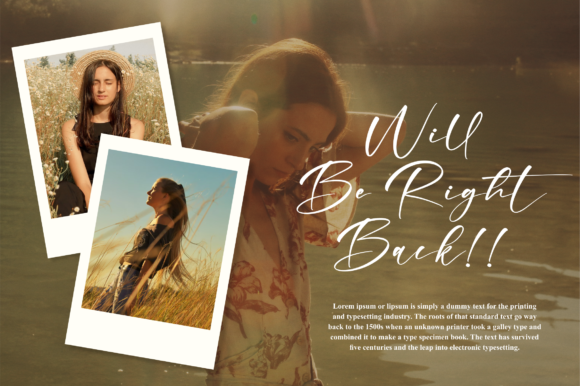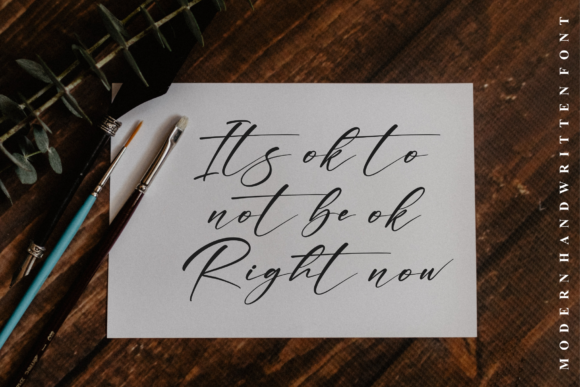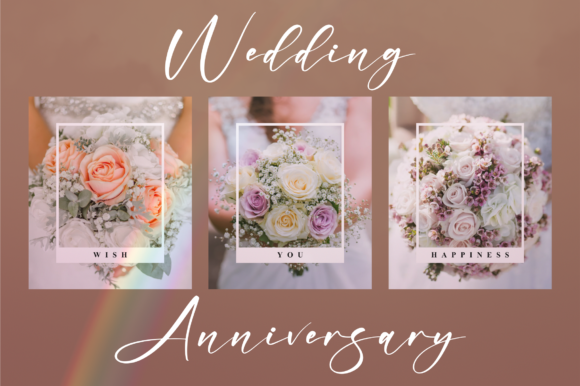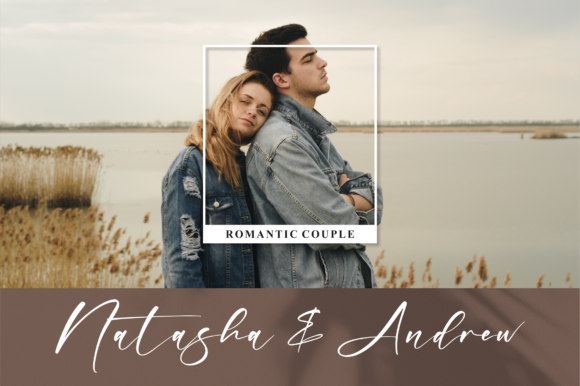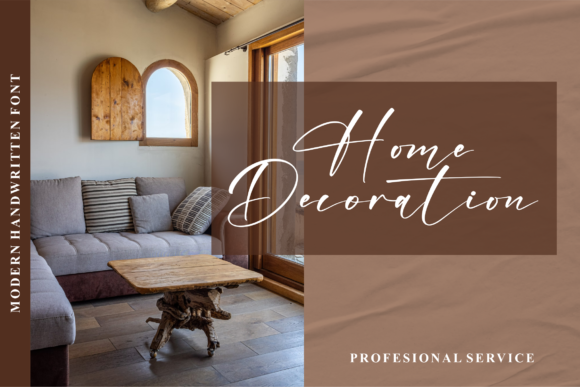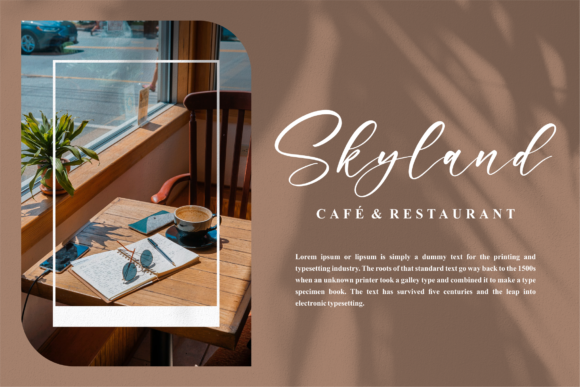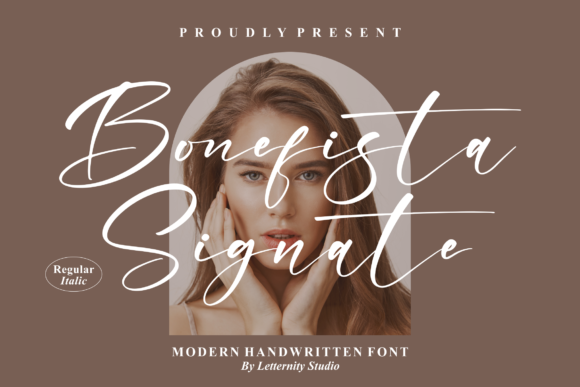
When a Beautiful Script Font is the Perfect Match
Have you ever found yourself staring at a blank page, searching for the perfect font to bring your creative project to life? The moment of clarity arrives, and you know exactly what you need – a beautiful, elegant script font that exudes warmth and sophistication. For designers, this moment is a regular occurrence, and it’s what drives us to continually seek out new and inspiring fonts to elevate our work.
Enter the Bonefista Signate Font, a stunning script font that’s designed to make a lasting impression. With its delicate curves and refined lines, this font is perfect for a wide range of projects, from logos and branding to homeware designs and product packaging. Whether you’re a seasoned designer or just starting out, the Bonefista Signate Font is an invaluable addition to your creative toolkit.
Bonefista Signate Font Key Features
- Character Set: Latin, Cyrillic, Greek, and many other languages
- Unique Characteristics: Bonefista Signate features a unique blend of modern and vintage elements, with a focus on high contrast and strong lines.
- Font Styles: Includes 4 font styles: Regular, Bold, Italic, and Bold Italic
Bonefista Signate Font Review
I recently had the chance to work with the Bonefista Signate Font, and I must say it’s a unique and quirky addition to any design project. ✨ The font’s eclectic mix of script and serif styles creates a visually interesting and eye-catching effect. ✨ The subtle texture and imperfections add a sense of character and authenticity, making it perfect for designs that need a bit of personality.
However, as with any font, there are some limitations to consider. ⚠️ One of the main drawbacks is the font’s limited character set, which can make it difficult to use for longer blocks of text. ⚠️ Additionally, the font’s irregularities can sometimes make it hard to read, particularly for viewers with visual impairments.
Overall, I think the Bonefista Signate Font is a great choice for designers who want to add some flair to their projects. It’s perfect for titles, headings, and other short-form text where its unique character can shine. Just be sure to use it in moderation and pair it with a clear and readable font for body text.
- Unique script and serif style
- Subtle texture and imperfections
- Eye-catching and visually interesting
- Limited character set
- Can be difficult to read in larger blocks of text
Bonefista Signate Font Practical Application Guide
Getting the Most Out of the Bonefista Signate Font
To get the most out of the Bonefista Signate Font, try the following tips:
- Use the font in combination with other bold and elegant fonts to create a unique design.
- Use the font in headings and titles to draw attention to important information.
The Bonefista Signate Font is commonly used in:
- Business cards and branding materials.
- Magazine and newspaper
Alternatives to Bonefista Signate Font
Open Sans is a clean and modern sans-serif font. It’s highly legible and works well for body text, headings, and titles. Use it for digital products, web design, and print materials where you need a professional and approachable look. Compared to Bonefista Signate Font, Open Sans has a more neutral tone and is more versatile in its applications.
Montserrat is a geometric sans-serif font inspired by the streets of Buenos Aires. It’s great for headlines, titles, and short paragraphs. Use it for urban, modern, and minimalist designs where you need a bold and edgy look. Compared to Bonefista Signate Font, Montserrat has a more angular and geometric feel, making it perfect for bold statements and eye-catching headlines.
Lato is a modern sans-serif font with a friendly and approachable feel. It’s highly legible and works well for body text, headings, and titles. Use it for digital products, web design, and print materials where you need a clean and professional look. Compared to Bonefista Signate Font, Lato has a more relaxed tone and is more suitable for designs that require a softer and more human touch.